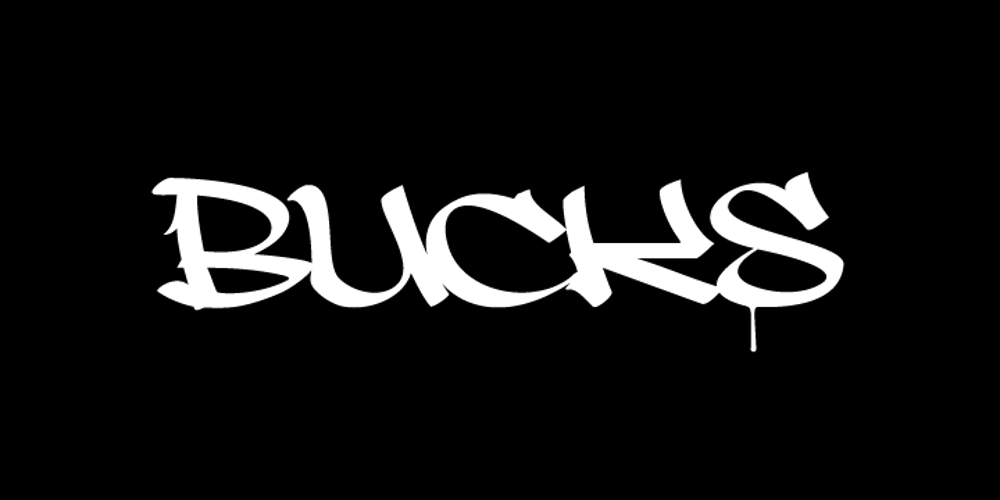
Bucks
Bucks font
Bucks Font Family was designed by Richard D. Granados and published by Stereo Type Haus. Bucks contains 3 styles and family package options. The idea was to create a legible font based on graffiti (wide tip marker) hand styles. Special attention to tight spacing, stylish caps & alternate drips bring an authentic street aesthetic into any layout or signage.